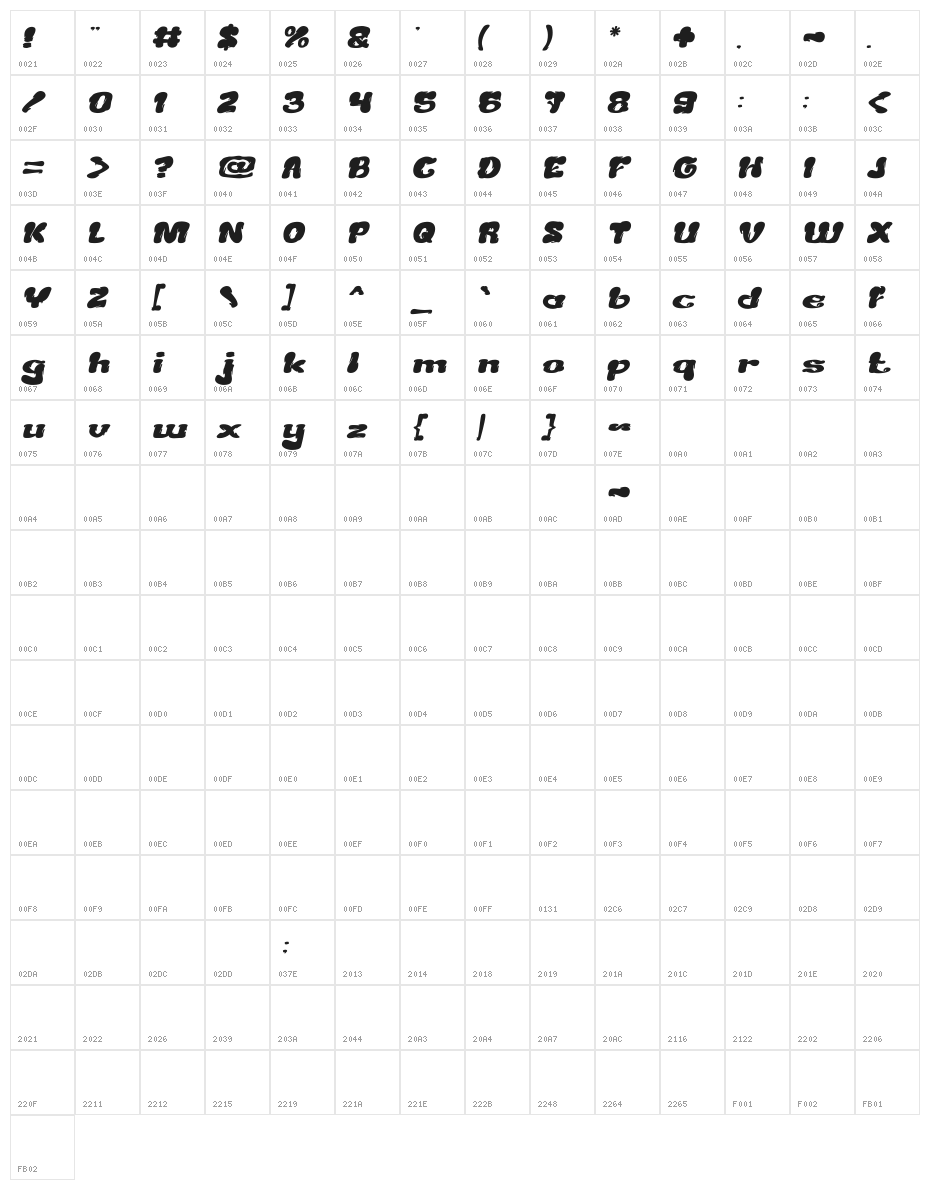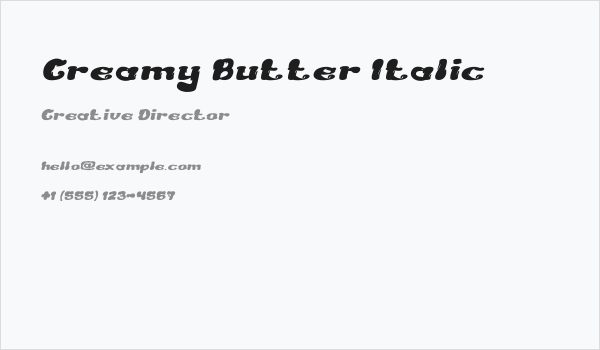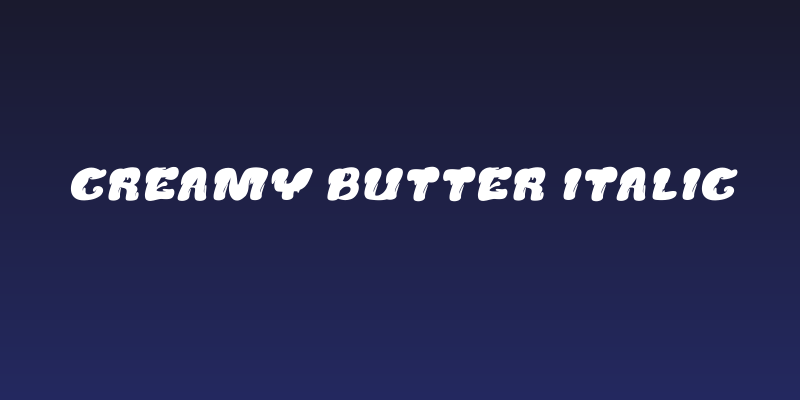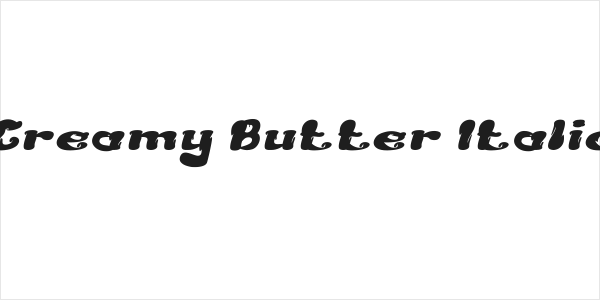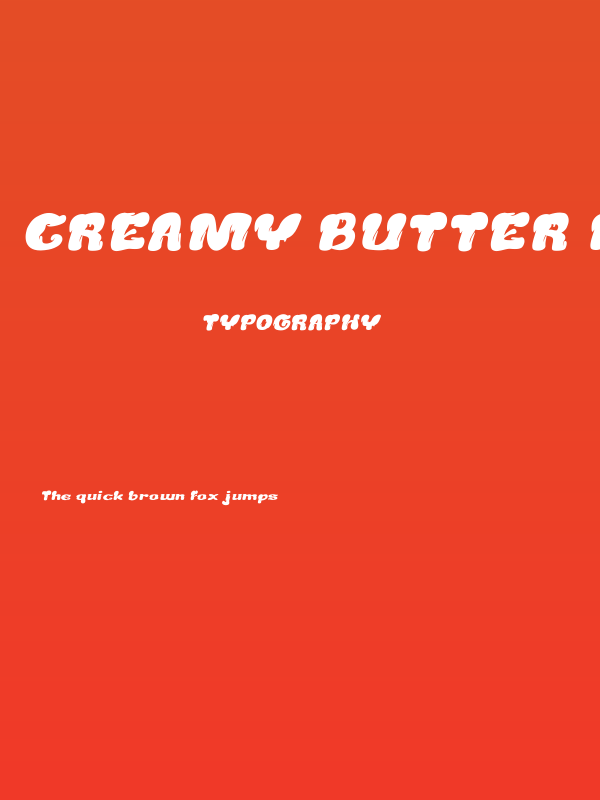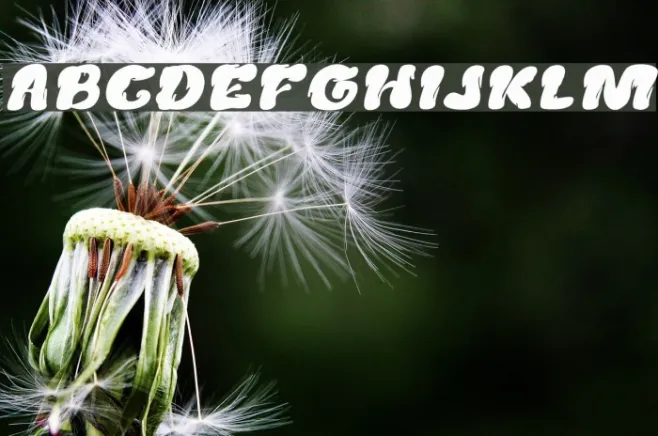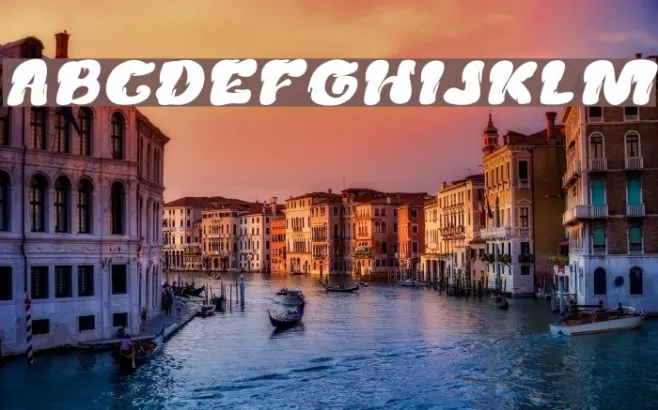
Creamy Butter Italic Font
Creamy Butter Italic Description
This font features a playful and bold style with a distinctive italic slant, giving it a dynamic and energetic appearance. The characters are rounded and full-bodied, with a smooth, flowing quality that suggests movement and fluidity. The boldness of the letters is complemented by a slight shadow effect, adding depth and dimension. The font's whimsical nature makes it ideal for creative projects that require a touch of fun and personality. Its unique style is both eye-catching and memorable, making it suitable for a variety of design applications.
| Overall Style | Playful, Energetic, Whimsical |
| Proposed Projects | Ideal for children's books, playful branding, creative posters, and eye-catching headlines. |